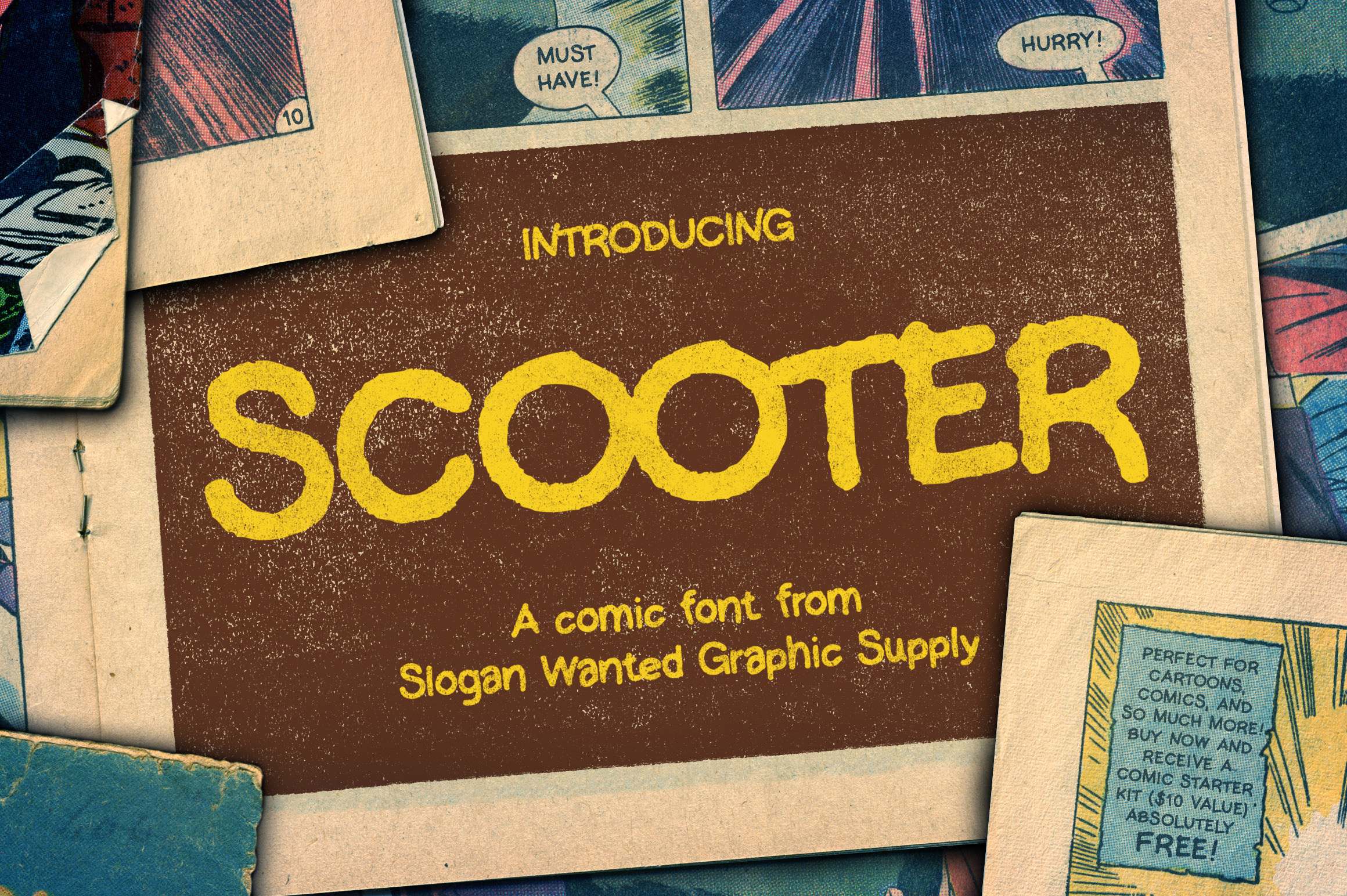
Scooter | Comic Font [+ Freebies]
Introducing...SCOOTER
A PLAYFUL AND HILARIOUS FONT from Slogan Wanted Graphic Supply
Whether you're working on a birthday invite or creating the next generation of superheroes, Scooter is the perfect font for you! Fresh and hip, while never taking itself too seriously. Retro and familiar, yet current and approachable. It's like Comic Sans' cooler younger brother without the social stigma. What I'm trying to say is, you're not gonna loose your street cred if you're seen canoodling with Scooter behind the bleachers. So be a cool kid and buy Scooter today. You know you wanna.